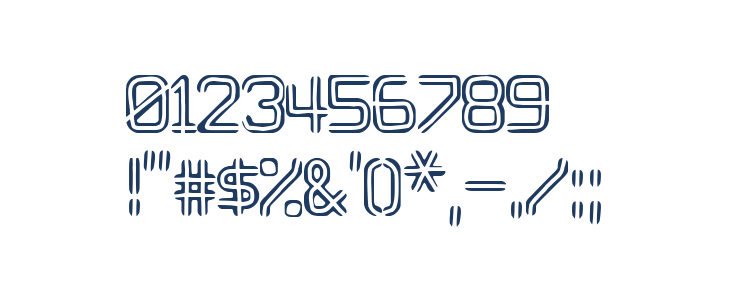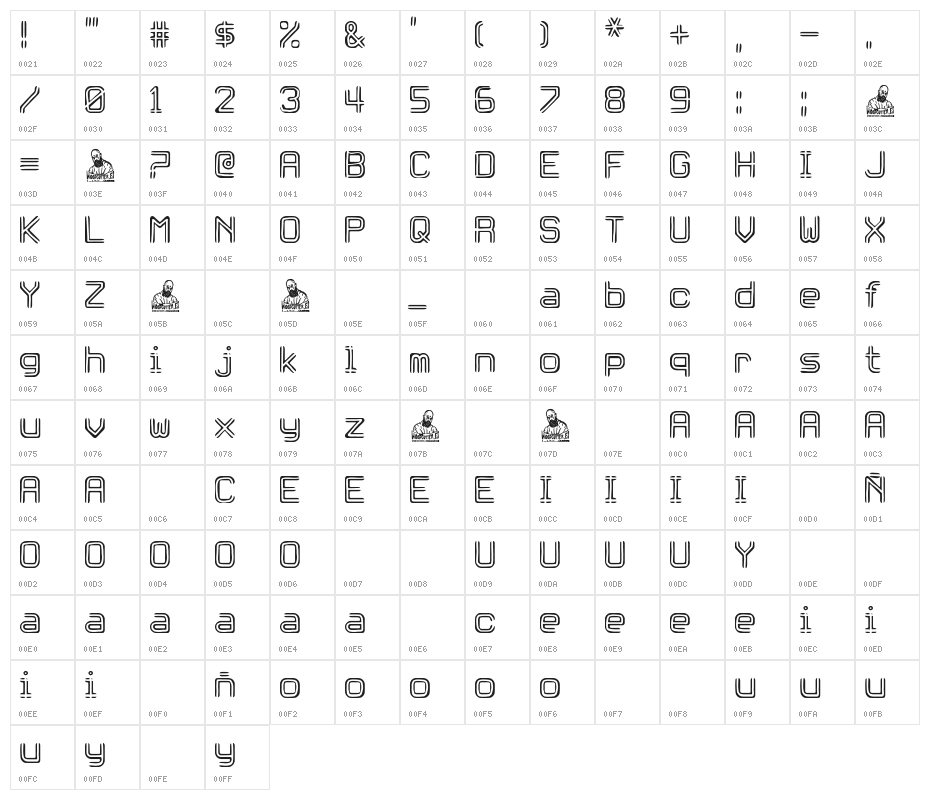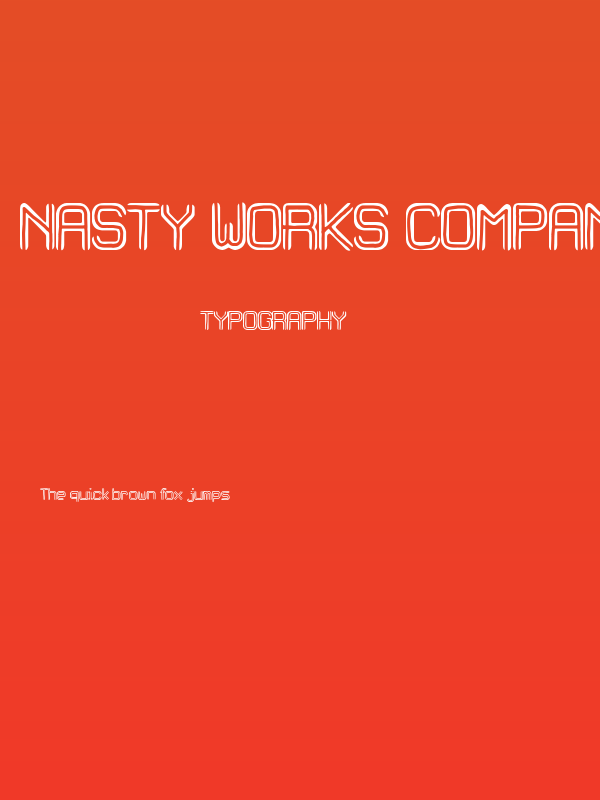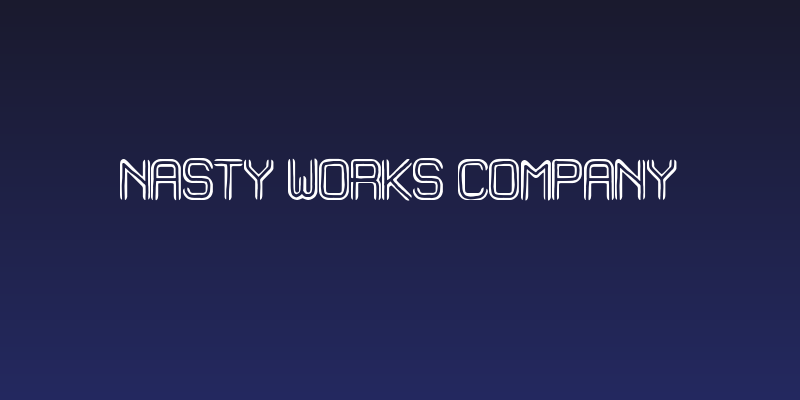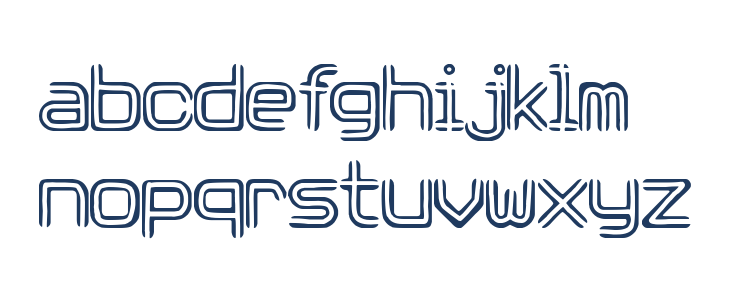
Nasty Works Company Font
Nasty Works Company Description
A geometric, outlined sans-serif font with double-line strokes and rounded corners, giving it a modern, slightly futuristic appearance. The characters are evenly spaced, with consistent stroke width and open counters, making it visually striking and legible.
| Overall Style | Modern, Futuristic, Decorative |
| Use Case | Headlines, Logos, Posters, Display text |
| Proposed Projects | Posters, album covers, branding, tech event graphics, futuristic designs, display headlines. |